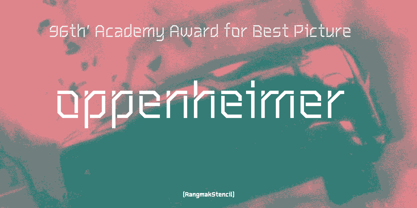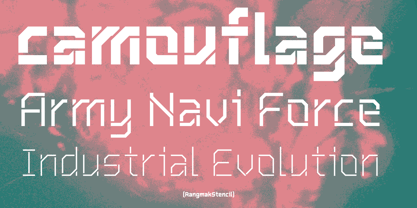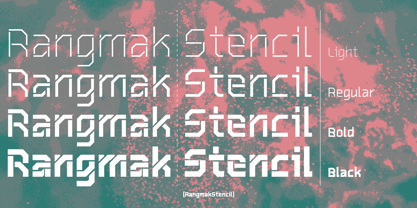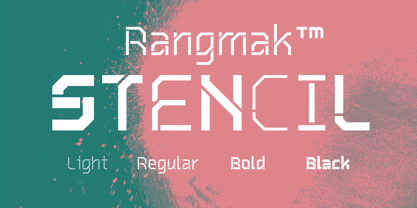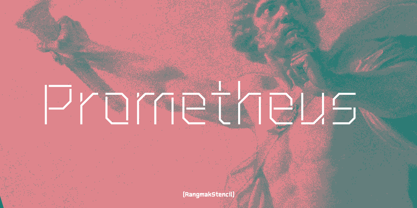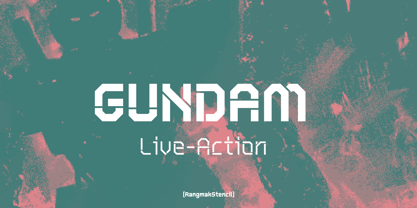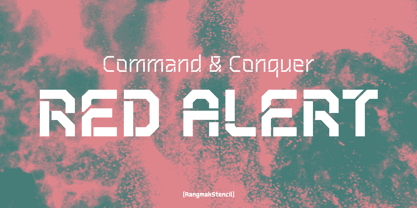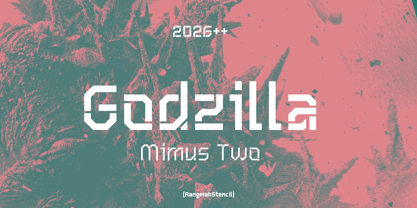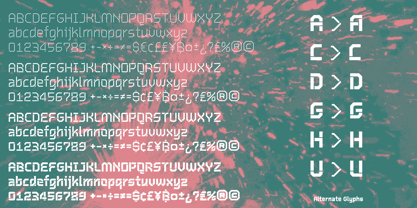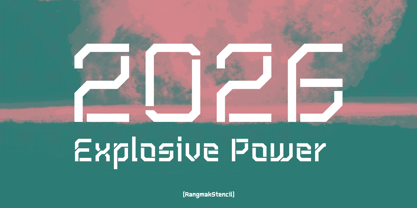
Rangmak Stencil
Die Schriftfamilie Rangmak Stencil wurde von Sansern Rianthong entworfen und von Zooddooz veröffentlicht. Rangmak Stencil enthält 4 Stile und Familienpaketoptionen. Mehr über diese Familie
RangmakStencil™ is a contemporary display typeface inspired by the bold and disciplined aesthetics of Soviet Propaganda typography. It draws from the visual language of strength, clarity, and authority, reinterpreted for modern graphic design contexts. Designed as a monoline sans serif type family, RangmakStencil™ features uniform stroke weight across vertical, horizontal, and diagonal forms. This structural consistency gives the typeface a solid and stable character while allowing it to integrate seamlessly with stroke-based graphic systems, vector illustrations, grids, and line-based compositions. The family consists of four weights—Light, Regular, Bold, and Black—each maintaining the same strong visual identity while offering varying degrees of impact. Light delivers a clean and restrained presence, suitable for minimal layouts. Regular acts as the foundation of the family, balancing clarity and character. Bold and Black emphasize power and dominance, making them ideal for headlines, posters, logos, and branding applications that require strong visual presence. RangmakStencil™ communicates a personality that is confident, robust, and assertive. Its firm geometry and controlled proportions avoid decorative excess, focusing instead on functional clarity and visual force. This makes the typeface particularly effective for design fields such as music, technology, gaming, motorsport, sports, and military-inspired visuals, where energy, performance, and authority are essential. The name RangmakStencil™ in Thai, meaning “extremely powerful”. Primarily intended as a display typeface, RangmakStencil™ is optimized for titles, branding, packaging, and visual identities rather than long-form text.
Designer: Sansern Rianthong